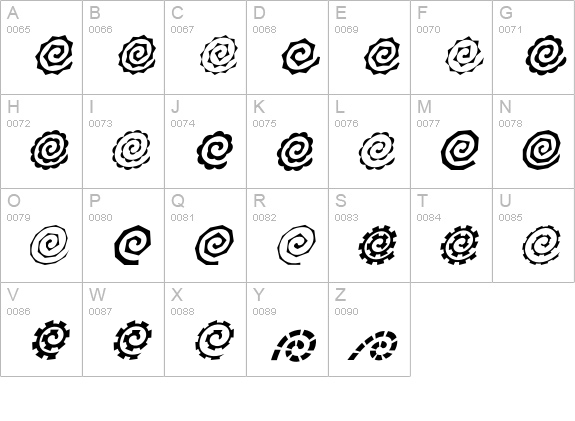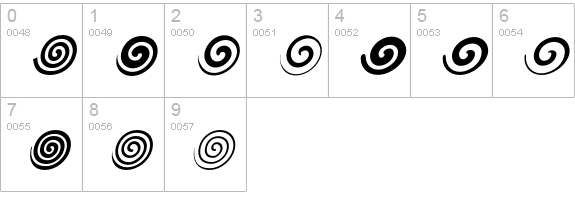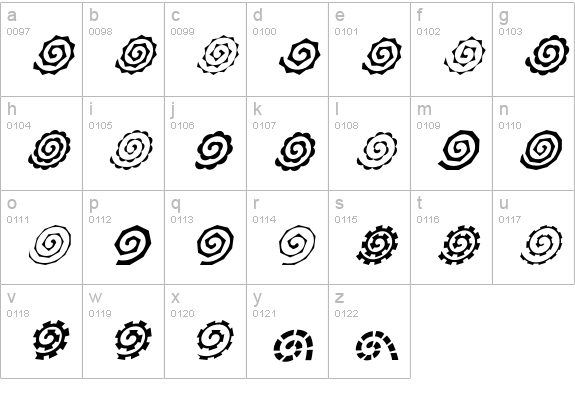
AltemusSpiralsItalic Font Details
AltemusSpiralsItalic is a captivating and unique font that effortlessly combines elegance with a touch of whimsy. Its delicate and intricate spiral design adds a dynamic and playful element to any project, making it perfect for creative and artistic endeavors. This font is free for personal and commercial use, allowing you to add a distinctive flair to your designs without any cost constraints. AltemusSpiralsItalic is freely available to download at FontsMarket.com, ensuring easy access to this enchanting font for all your creative needs. Elevate your projects with the charm and creativity of AltemusSpiralsItalic today!